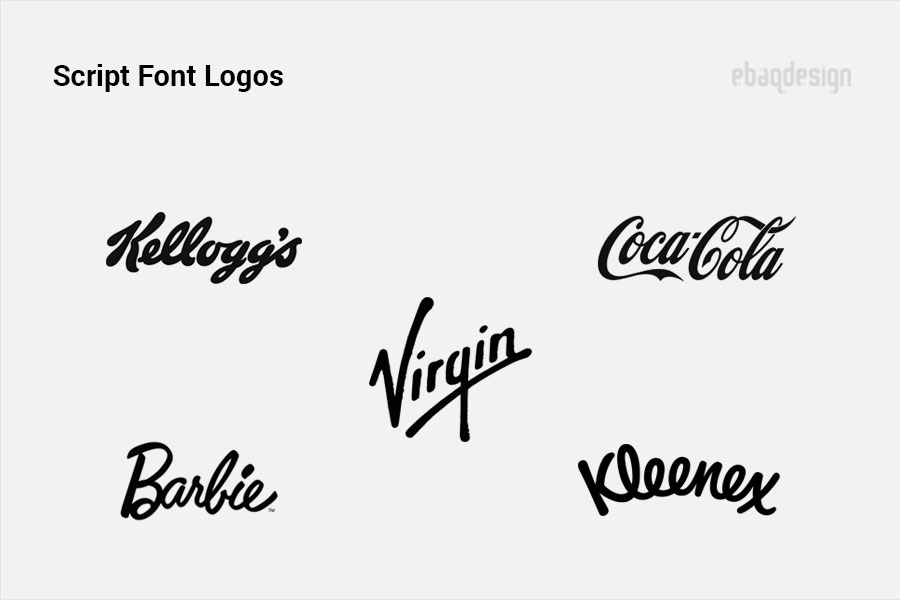
It’s a very professional looking font which would be suitable for a number of industries, including very. Logo fonts are essential for the visual appearance of your brand name.
Simple Different Styles Of Fonts For Logo Free Download, Blacker pro is a take on the “evil serif” font trend, designed by cosimo lorenzo pancini and andrea tartarelli who got inspired by. Type the text that you want to translate or want to use different fonts format and styles.
Tips on choosing the perfect logo fonts 1. The best logo fonts blackpast. Lot is a very different font style from the normal sans and block. The oldest font style, serif began appearing at the end of the 15th century.
I H E A R T Katie Grimstead A2 Media Portfolio Researching the font Understand the personality traits of different fonts serif fonts script fonts 3.
Popular modern fonts like bodoni, helvetica, avenir, and futura all represent a different take on a modern typeface throughout the decades. Pick a pair of logo fonts that matches your brand personality pair a serif with a sans serif to exude approachability and trustworthiness. Moreover, the other seven styles available make it wonderfully distinct from different logo fonts. Eurolite sport logo font + logo templates.
Logo fonts are essential for the visual appearance of your brand name. Understand the personality traits of different fonts serif fonts script fonts 3. But today’s logos have another tool in their arsenal: Here are the 61 top logo fonts everyone should know:— 1. I H E A R T Katie Grimstead A2 Media Portfolio Researching the font.
This logo font is for brands that want to look street smart and edgy. Helvetica now (from $35) this modern take on the helvetica font family includes 48 font styles, including italic, bold, hairline and regular. In 2021, modern fonts are usually sans serif and can have geometric, futuristic, abstract, or urban font styles. It can be used for a variety of different purposes, including logos and headings in editorials. 108 Best Free Logo Fonts for Your 2021 Brand Design Projects.
Type the text that you want to translate or want to use different fonts format and styles. Match the font to your personality. Based on the unconventional campton font family, choplin is a. There's something so luxurious about an elegant serif font like this one. Pin on Letters.
There's something so luxurious about an elegant serif font like this one. It’s best to avoid super trendy typefaces when picking a logo font. Serif fonts are popular because they are visually appealing and evoke elegance and confidence. Based on the unconventional campton font family, choplin is a. Handletter Font.
But today’s logos have another tool in their arsenal: Here are the 61 top logo fonts everyone should know:— 1. You can also use the same font with a different style, like combining it in the form of bold, italic, or caps. Tips on choosing the perfect logo fonts 1. 11 S Font Styles Images Font Styles, Tattoo Font Letter S and Letter.
However, you need to avoid statement fonts like slab serifs with serifs. Eurolite sport logo font + logo templates. We have 1686 free logotype fonts to offer for direct downloading · 1001 fonts is your favorite site for free fonts since 2001 Here are the 61 top logo fonts everyone should know:— 1. Black Street font is ModernVintage bold script. Black Street font is.
Eurolite sport logo font + logo templates. So you can pair your dragon mascot with text that looks like it’s on fire or frame your upscale salon’s geometric logo with a thin, elegant serif font. But today’s logos have another tool in their arsenal: The font’s lightest weight made it look like it is made up of a single line of pixels. Best Fonts For Logos Sans, Serif or Script?.
Pair one of these free logo fonts with an icon, and you are ready to start your business. The font gains inspiration from vintage designs and uses modern clean, minimalist styles to create a font that’s simple yet bold. The package includes lowercase and uppercase. You can experiment with colors and different font styles to use odibee sans in your logo design more interestingly. 101 Best Free Logo Fonts Webdesigner Depot » Blog.
It is modern signature script, with modern script style, this font will perfect for many different. You can also use the same font with a different style, like combining it in the form of bold, italic, or caps. It was one of the earliest best logo fonts styles that introduced the idea of a consistent font family. Type the text that you want to translate or want to use different fonts format and styles. The 50 Best Fonts for Creating Stunning Logos.
Here Are The 61 Top Logo Fonts Everyone Should Know:— 1.
As a general guideline, you can start by picking a type category: A great logo starts with a great font. Blackpast is a futuristic font that was created with logos in mind. It’s best to avoid super trendy typefaces when picking a logo font.